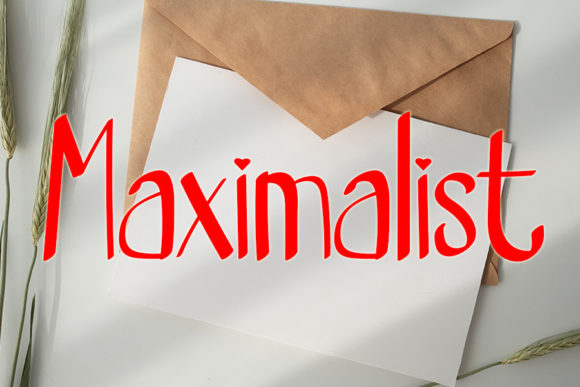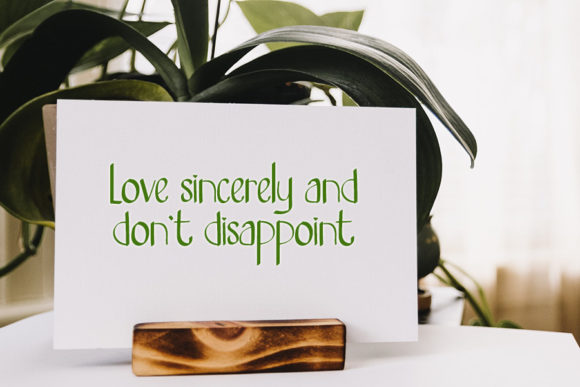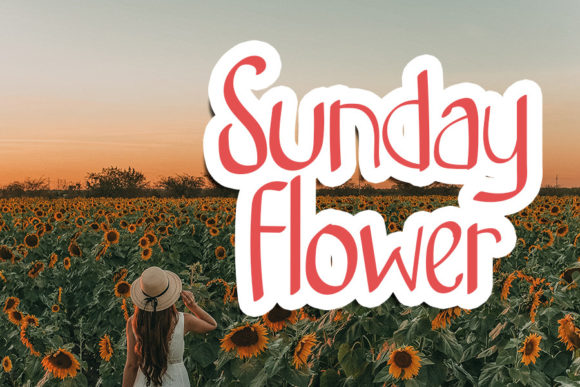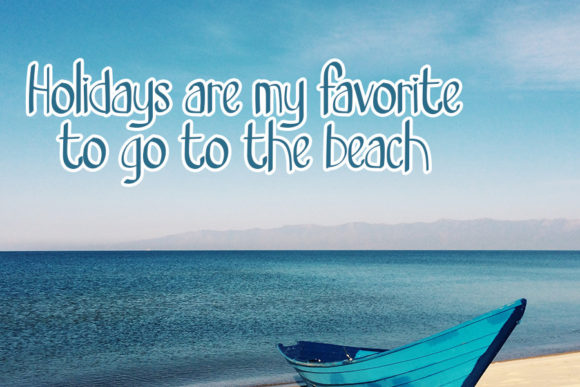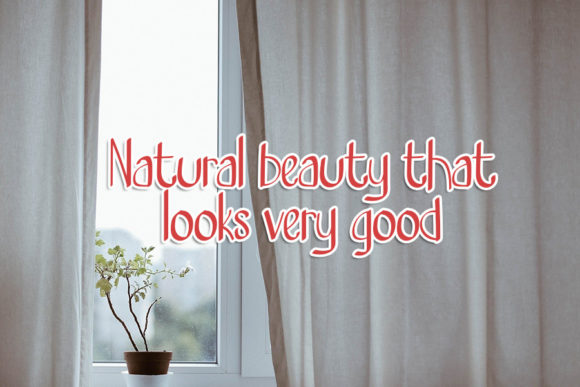
Maximalist Font
About Maximalist Font
Maximalist is a minimal, yet elegant handwritten font. Suitable to a wide variety of designs due to its neat and simple style, this font has the potential to become your favorite go-to font, no matter the occasion!